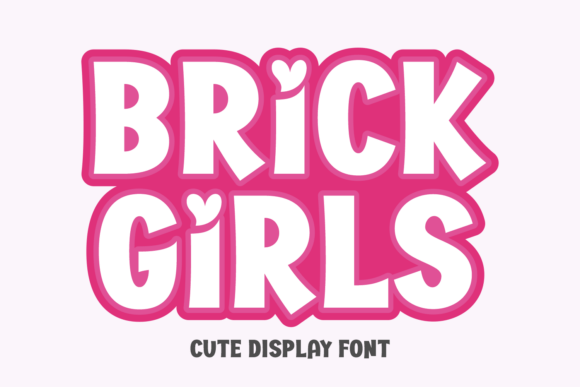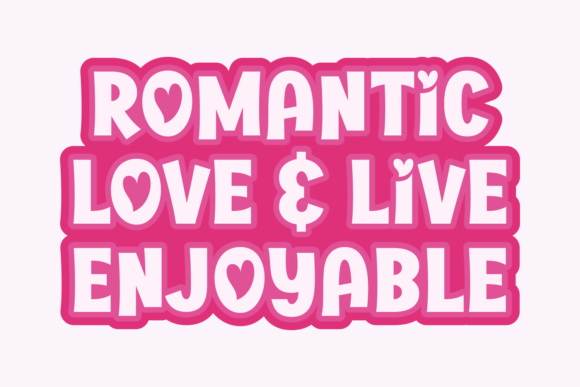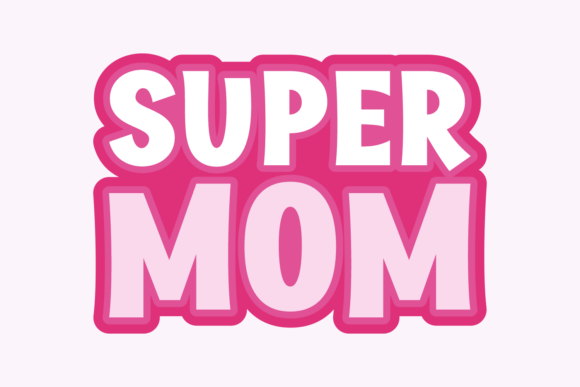
Brick Girls Font: Add a Touch of Whimsy to Your Designs
Are you looking for a font that can instantly brighten up your creative projects with its bubbly personality and upbeat vibe? Look no further than the Brick Girls font! This charming display typeface is designed to capture a fresh and playful spirit, making it perfect for a wide range of applications, from kids’ product packaging to trendy fashion labels and dynamic social media posts.
The Personality of Brick Girls Font
The Brick Girls font boasts thick, rounded letterforms that radiate warmth and friendliness. Its energetic and playful vibe is sure to make your designs stand out from the crowd. The font’s bubbly personality is reminiscent of childhood nostalgia, making it an excellent choice for designs targeting young audiences. Whether you’re creating bold headlines for a creative blog or crafting colorful merchandise for kids, the Brick Girls font delivers a delightful mix of sweetness, confidence, and standout appeal.
The Brick Girls font is incredibly versatile and can be used in a wide range of applications. Some of the most popular uses for this font include:
- Kids’ product packaging: The font’s playful and energetic vibe makes it perfect for packaging designs that need to appeal to young children.
- Trendy fashion labels: The Brick Girls font’s bold and confident personality makes it an excellent choice for fashion brands looking to make a statement.
- Dynamic social media posts: The font’s fun and upbeat vibe makes it perfect for social media posts that need to grab attention and stand out from the crowd.
- Classroom posters: The font’s playful and educational vibe makes it an excellent choice for classroom posters and educational materials.
- Party invitations: The Brick Girls font’s fun and celebratory vibe makes it perfect for party invitations and other event materials.
Customizing the Brick Girls Font
One of the best things about the Brick Girls font is its versatility. Designers can amplify the font’s fun and playful look by adding pastel gradients, bold shadows, or chunky outlines. These customization options allow designers to tailor the font to their specific needs and create a unique look that sets their designs apart.
Some popular ways to customize the Brick Girls font include:
- Adding pastel gradients: Soft, pastel gradients can add a touch of whimsy and playfulness to the font.
- Using bold shadows: Bold shadows can add depth and dimension to the font, making it stand out even more.
- Adding chunky outlines: Chunky outlines can add a fun and playful touch to the font, making it perfect for designs that need to grab attention.
Tips for Using the Brick Girls Font
Here are a few tips for getting the most out of the Brick Girls font:
- Use it for headlines: The Brick Girls font is perfect for bold headlines and titles. Use it to grab attention and make a statement.
- Pair it with other fonts: The Brick Girls font pairs well with a wide range of other fonts. Experiment with different combinations to find the perfect look for your design.
- Experiment with colors: The Brick Girls font looks great in a wide range of colors. Experiment with different colors and gradients to find the perfect look for your design.
- Use it for branding: The Brick Girls font is perfect for branding and identity design. Use it to create a fun and playful brand identity that stands out from the crowd.
| Font Name | Brick Girls Font |
| Author | Arnika Studio |
The Brick Girls font is a charming display typeface that’s perfect for designers and crafters looking to add a touch of whimsy to their designs. Its bubbly personality and upbeat vibe make it perfect for a wide range of applications, from kids’ product packaging to trendy fashion labels and dynamic social media posts. With its versatility and customization options, the Brick Girls font is sure to become a favorite in your design toolkit.